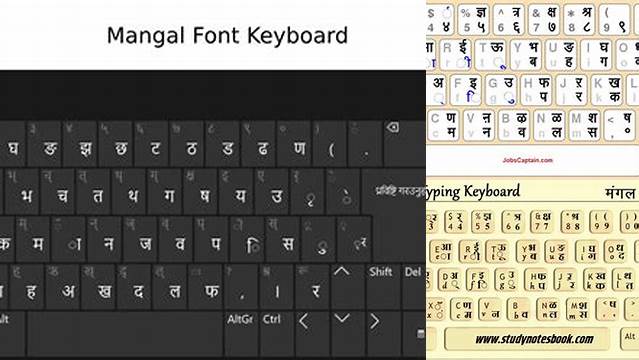
Mangal Font Keyboard Layout: Free PDF Download Guide
Hey guys! Are you looking to get your hands on the Mangal font keyboard layout? Well, you've come to the right place! This comprehensive guide will walk you through everything you need to know, from understanding the Mangal font to downloading the keyboard layout PDF for free. We'll cover all the nitty-gritty details, so you can start typing in Mangal like a pro. Let's dive in!
1. What is Mangal Font?
So, what exactly is the Mangal font? Well, it's a widely used Unicode font primarily used for typing in Hindi and other Indian languages. If you're dealing with Devanagari script, which is used for Hindi, Marathi, Nepali, and more, Mangal is often the go-to font. It's clean, readable, and has become a standard for many official documents and publications. Understanding the Mangal font is the first step in mastering its keyboard layout. It's important to recognize the significance of the Mangal font in digital communication, particularly for those working with Indic scripts. This font ensures that the text appears correctly across different platforms and devices, maintaining readability and consistency. Getting familiar with the nuances of the font itself will make the transition to using the keyboard layout much smoother. Moreover, knowing the history and context of the font's development can provide a deeper appreciation for its role in preserving and promoting linguistic diversity in the digital age. The more you understand about the Mangal font, the better equipped you'll be to utilize its keyboard layout effectively.
2. Importance of Mangal Font Keyboard Layout
Why is the Mangal font keyboard layout so important? Think about it: typing in a different script can be tricky if you don't know where the characters are. The keyboard layout maps the Devanagari characters to specific keys, making it easier to type in Hindi and other related languages. Without a proper layout, you'd be lost! The importance of the Mangal font keyboard layout extends beyond mere convenience; it's about accessibility and efficiency. A well-designed keyboard layout allows users to type quickly and accurately, which is crucial for professional document creation, academic research, and personal communication. Imagine trying to write a lengthy email or report without a proper layout – it would be incredibly time-consuming and frustrating. The Mangal font keyboard layout is specifically designed to accommodate the complex characters and diacritics of Devanagari script, ensuring that users can input text with ease. This is especially important for individuals who are not native English typists but need to work with Devanagari script on a regular basis. By mastering the layout, users can unlock their full potential and communicate effectively in their preferred language.
4. Understanding the Mangal Keyboard Layout
The Mangal keyboard layout might seem a bit daunting at first, but don't worry, it's not as complicated as it looks. It's designed to be logical and efficient, so with a bit of practice, you'll get the hang of it. We'll break down the layout into sections and explain how different characters are mapped to the keys. Understanding the Mangal keyboard layout is crucial for efficient typing in Devanagari script. The layout is designed to accommodate the complex structure of the script, which includes vowels, consonants, and a variety of diacritics. Unlike the standard QWERTY layout, the Mangal layout places frequently used characters in easily accessible positions, minimizing finger travel and maximizing typing speed. By understanding the underlying logic of the layout, users can quickly locate the characters they need and avoid the frustrating hunt-and-peck method. This not only improves typing speed but also reduces the risk of errors and typos. A thorough understanding of the Mangal keyboard layout will empower you to communicate effectively in Hindi and other related languages, whether you're writing emails, documents, or social media posts.
5. Key Mapping and Character Placement
Let's talk about key mapping and character placement on the Mangal keyboard. You'll notice that the vowels and consonants are arranged in a specific way, often based on phonetic similarities. This makes it easier to learn and remember where each character is located. We'll highlight some of the key placements to help you get started. The key mapping and character placement on the Mangal keyboard are carefully designed to optimize typing efficiency and accuracy. The layout takes into account the frequency of character usage in Devanagari script, placing the most common characters in easily accessible positions. Vowels, for example, are typically located on the left side of the keyboard, while consonants are on the right. This arrangement minimizes the distance that fingers need to travel, allowing for faster and more fluid typing. Additionally, the layout groups characters based on their phonetic relationships, which can help users to remember their positions. By understanding the rationale behind the key mapping, users can develop a more intuitive understanding of the layout and improve their typing skills. This knowledge is essential for anyone who wants to become proficient in typing in Mangal font.
6. Tips for Learning the Mangal Keyboard Layout
Learning a new keyboard layout can be challenging, but with the right approach, you can master the Mangal keyboard layout in no time. We'll share some helpful tips and tricks to make the learning process smoother and more efficient. Practice is key, guys! Learning the Mangal keyboard layout requires a combination of understanding, memorization, and practice. Start by familiarizing yourself with the layout using the PDF we discussed earlier. Identify the key positions for vowels, consonants, and diacritics. Then, begin practicing with simple words and phrases, gradually increasing the complexity as you become more comfortable. There are also various online resources and typing tutorials that can help you improve your skills. One effective technique is to use a typing tutor that provides visual feedback and tracks your progress. Consistency is crucial – try to practice for at least 15-20 minutes each day. Over time, your muscle memory will develop, and you'll be able to type in Mangal font without even thinking about the key positions. Remember to be patient with yourself and celebrate your progress along the way.
7. Practice Exercises for Mangal Font Typing
Okay, let's put your knowledge to the test with some practice exercises for Mangal font typing. We'll suggest some drills and activities that will help you reinforce your understanding of the layout and improve your typing speed and accuracy. Repetition is your friend here! Practice exercises are an essential part of mastering the Mangal font keyboard layout. Start with simple exercises, such as typing individual characters and syllables, and then move on to more complex words and phrases. Try typing out common Hindi words and sentences, or even transcribe passages from your favorite Hindi books or articles. Another effective exercise is to use online typing tutors that are specifically designed for the Mangal layout. These tutors often provide interactive lessons and track your progress, giving you valuable feedback on your speed and accuracy. You can also create your own practice exercises by writing out short stories or essays in Mangal font. The key is to find exercises that you enjoy and that challenge you to improve. Regular practice will build your muscle memory and allow you to type more fluently and confidently in Mangal font.
8. Online Resources for Mangal Typing
Luckily, there's a wealth of online resources for Mangal typing available. We'll point you towards some helpful websites, typing tutors, and online keyboards that you can use to practice and improve your skills. The internet is your friend, guys! The internet offers a vast array of resources for learning and practicing Mangal typing. Online typing tutors, websites with Mangal text, and virtual keyboards are just a few of the tools that can aid in your journey to proficiency. Many websites offer free typing lessons and exercises specifically designed for the Mangal font keyboard layout. These lessons often include visual aids, audio pronunciation guides, and interactive exercises to help you learn the key positions and develop your typing skills. Online typing tutors provide personalized feedback on your speed and accuracy, allowing you to track your progress and identify areas for improvement. Virtual keyboards, which display the Mangal keyboard layout on your screen, are also useful for practicing without a physical keyboard. In addition to these resources, there are numerous online communities and forums where you can connect with other Mangal typists, ask questions, and share tips. By leveraging the power of the internet, you can access a wealth of information and support to help you master Mangal typing.
9. Mangal Font Typing Tutors
Mangal font typing tutors can be a game-changer when it comes to learning the layout. These tools provide structured lessons, track your progress, and offer personalized feedback. We'll highlight some of the best typing tutors available online. Investing time in a good typing tutor can significantly accelerate your learning process. Typing tutors are specifically designed to help you learn the Mangal font keyboard layout in a systematic and effective way. They typically offer a range of exercises, from basic character drills to advanced sentence typing, and provide immediate feedback on your speed and accuracy. Many typing tutors also track your progress over time, allowing you to see how much you've improved. One of the key benefits of using a typing tutor is that it can help you develop muscle memory, which is essential for touch typing. By practicing regularly with a tutor, you'll gradually learn the key positions without even thinking about them. Additionally, typing tutors often provide personalized recommendations based on your performance, helping you to focus on areas where you need the most improvement. Whether you're a beginner or an experienced typist, a Mangal font typing tutor can be a valuable tool for enhancing your typing skills.
10. Online Mangal Keyboard Options
If you don't have a physical Mangal keyboard, don't worry! There are plenty of online Mangal keyboard options that you can use. These virtual keyboards allow you to type in Mangal directly in your browser. We'll share some of the best online keyboards available. Online Mangal keyboards are a convenient and accessible way to type in Devanagari script, especially if you don't have a physical Mangal keyboard or if you're using a device that doesn't support Mangal input. These virtual keyboards display the Mangal keyboard layout on your screen, allowing you to type by clicking on the keys with your mouse or tapping on the screen if you're using a touchscreen device. Many online Mangal keyboards also offer additional features, such as predictive text and auto-correction, which can help to improve your typing speed and accuracy. They are particularly useful for situations where you need to type in Mangal temporarily, such as when using a public computer or when traveling. Additionally, online Mangal keyboards can be a great tool for learning the keyboard layout, as they provide a visual representation of the key positions. Whether you're a beginner or an experienced typist, an online Mangal keyboard can be a valuable resource for typing in Devanagari script.
11. Installing Mangal Font on Your Computer
To use the Mangal font, you'll need to install it on your computer. Luckily, it's usually included with Windows, but if you don't have it, we'll show you how to download and install it. It's a pretty straightforward process. Installing the Mangal font on your computer is essential for ensuring that Devanagari script is displayed correctly in your documents and applications. Fortunately, Mangal font is often pre-installed on Windows operating systems, so you may already have it. However, if you don't, or if you're using a different operating system, you can easily download and install the font from various online sources. When downloading fonts, it's important to choose a reputable source to avoid downloading malicious files. Once you've downloaded the font file, the installation process is typically straightforward: simply double-click the file and follow the on-screen instructions. After the font is installed, you'll need to restart your application or computer for the changes to take effect. Once the Mangal font is installed, you'll be able to select it as your font in word processors, email clients, and other applications, allowing you to type and view Devanagari script with ease.
12. Setting Up Mangal Keyboard Layout in Windows
If you're using Windows, you'll need to set up the Mangal keyboard layout in your settings. This will allow you to switch between the English and Mangal layouts easily. We'll walk you through the steps. Setting up the Mangal keyboard layout in Windows is a crucial step for anyone who wants to type in Devanagari script on a regular basis. By adding the Mangal keyboard layout to your system, you can easily switch between English and Mangal input methods using a keyboard shortcut. This allows you to type in both languages seamlessly without having to change your keyboard layout manually. The process for setting up the Mangal keyboard layout in Windows is relatively straightforward and involves navigating to the language settings in the Control Panel or Settings app. Once you've added the Mangal keyboard layout, you can select it as your input method whenever you need to type in Devanagari script. You can also customize the keyboard shortcut used to switch between languages, making it even more convenient to use. By setting up the Mangal keyboard layout in Windows, you'll be able to type in Hindi and other related languages with ease and efficiency.
13. Setting Up Mangal Keyboard Layout on Mac
For Mac users, the process is a bit different, but don't worry, we've got you covered! We'll explain how to set up the Mangal keyboard layout on your Mac, so you can start typing in Hindi in no time. Setting up the Mangal keyboard layout on a Mac is a similar process to Windows, but with a few key differences. Mac OS also supports multiple keyboard layouts, allowing you to easily switch between English and Mangal input methods. To add the Mangal keyboard layout on a Mac, you'll need to navigate to the Keyboard settings in System Preferences. From there, you can add the Devanagari – QWERTY layout, which is the standard Mangal keyboard layout for Mac. Once you've added the layout, you can switch between it and the English layout using the Input menu in the menu bar or by using a keyboard shortcut. Mac OS also allows you to customize the keyboard shortcuts used to switch between languages, making it even more convenient to use. By setting up the Mangal keyboard layout on your Mac, you'll be able to type in Hindi and other related languages with the same ease and efficiency as on Windows.
14. Common Mistakes to Avoid When Typing in Mangal Font
There are some common mistakes to avoid when typing in Mangal font. We'll highlight these pitfalls so you can steer clear of them and type more accurately. Knowing what not to do is just as important as knowing what to do! When typing in Mangal font, there are several common mistakes that users often make, particularly when they're first learning the layout. These mistakes can lead to errors and typos, which can be frustrating and time-consuming to correct. One common mistake is confusing similar-looking characters, such as vowels and consonants that have similar shapes. Another mistake is misplacing diacritics, which are small marks that modify the sound of a letter. It's also important to pay attention to the order in which characters are typed, as the order can affect the way the text is displayed. By being aware of these common mistakes, you can take steps to avoid them and improve your typing accuracy. Practice and attention to detail are key to mastering Mangal font typing and minimizing errors.
15. Troubleshooting Mangal Font Display Issues
Sometimes, you might encounter troubleshooting Mangal font display issues. If the font isn't displaying correctly, we'll offer some solutions to help you fix the problem. Don't panic, we've got your back! Despite being a widely used font, Mangal font can sometimes encounter display issues on certain systems or applications. These issues can range from characters not displaying correctly to the text appearing garbled or unreadable. One common cause of Mangal font display issues is the lack of proper font support on the system. If you're using an older operating system or application, it may not have the necessary support for Devanagari script. In this case, you may need to update your system or application to the latest version. Another potential cause is font corruption. If the Mangal font file is damaged or corrupted, it may not display correctly. In this case, you can try re-installing the font. Additionally, some applications may have specific settings that affect font display. If you're experiencing display issues in a particular application, you may need to adjust the font settings within the application. By troubleshooting these common issues, you can ensure that Mangal font displays correctly and that you can read and type Devanagari script without any problems.
16. Mangal Font for Different Indian Languages
As we mentioned earlier, Mangal font isn't just for Hindi. It's used for several other Indian languages that use the Devanagari script. We'll explore how Mangal is used for these languages. The versatility of Mangal font extends beyond Hindi, as it is also used for several other Indian languages that utilize the Devanagari script. These languages include Marathi, Nepali, Sanskrit, and Konkani, among others. The Devanagari script is a unified script that allows for the representation of sounds across these languages, making Mangal font a suitable choice for typing in any of them. However, it's important to note that while the basic keyboard layout remains the same, there may be some variations in character usage and diacritic combinations across different languages. For example, some characters may be more common in one language than another. Additionally, the specific conventions for writing certain words and phrases may vary. Therefore, while mastering the Mangal keyboard layout is a crucial first step, it's also important to familiarize yourself with the specific nuances of the language you're typing in. By understanding these nuances, you can ensure that your text is both accurate and idiomatic.
17. Differences Between Mangal and Other Hindi Fonts
There are other Hindi fonts out there, so what are the differences between Mangal and other Hindi fonts? We'll compare Mangal to some popular alternatives and explain why Mangal is often preferred. Understanding these distinctions can help you choose the right font for your needs. While Mangal is a widely used font for typing in Hindi, it's not the only option available. There are several other Hindi fonts that you can use, each with its own unique characteristics and features. Some popular alternatives include Kruti Dev, Arial Unicode MS, and Nirmala UI. One of the key differences between Mangal and other Hindi fonts is that Mangal is a Unicode font, while some other fonts, such as Kruti Dev, are non-Unicode fonts. Unicode fonts use a standardized character encoding system, which ensures that the text is displayed correctly across different platforms and applications. Non-Unicode fonts, on the other hand, use proprietary encoding schemes, which can lead to display issues and compatibility problems. Another difference is the keyboard layout. Mangal uses the Inscript keyboard layout, which is a standard keyboard layout for Indian languages. Kruti Dev, on the other hand, uses a different keyboard layout. These differences can impact typing speed and accuracy, as well as the ease of learning the layout. Ultimately, the best Hindi font for you will depend on your specific needs and preferences. However, Mangal's Unicode compliance, Inscript keyboard layout, and wide availability make it a popular and reliable choice for many users.
18. Advantages of Using Mangal Font
There are many advantages of using Mangal font. We'll highlight the key benefits, including its wide availability, Unicode support, and readability. Mangal is a solid choice for anyone working with Devanagari script. Using Mangal font offers several advantages, making it a popular choice for typing in Hindi and other related languages. One of the main advantages is its wide availability. Mangal font is often pre-installed on Windows operating systems, making it readily accessible to many users. This eliminates the need to download and install the font separately, simplifying the process of typing in Devanagari script. Another key advantage is its Unicode support. As a Unicode font, Mangal ensures that text is displayed correctly across different platforms and applications, preventing display issues and compatibility problems. This is particularly important for professional documents and publications that need to be shared and viewed by a wide audience. Additionally, Mangal font is known for its readability. The clear and crisp design of the characters makes it easy to read text in Mangal font, even at smaller font sizes. This is crucial for ensuring that your content is accessible and engaging. Overall, the advantages of using Mangal font make it a reliable and efficient choice for anyone working with Devanagari script.
19. Disadvantages of Using Mangal Font
Of course, no font is perfect. There are also some disadvantages of using Mangal font that you should be aware of. We'll discuss these drawbacks to give you a balanced perspective. It's good to know the limitations too! While Mangal font offers many advantages, there are also some potential drawbacks to consider. One disadvantage is that the Inscript keyboard layout, which is used by Mangal font, can be challenging to learn for users who are accustomed to the QWERTY layout. The Inscript layout places characters in different positions than the QWERTY layout, which can require significant practice and effort to master. This can be a barrier for some users, particularly those who are already proficient in typing on a QWERTY keyboard. Another disadvantage is that Mangal font may not be supported by all applications and systems. Although Mangal is widely available, some older software or operating systems may not have the necessary support for the font, leading to display issues. Additionally, some users may find the aesthetic appearance of Mangal font to be less appealing than other Hindi fonts. While Mangal is known for its readability, it may not have the same stylistic flair as some other fonts. Ultimately, the decision of whether or not to use Mangal font will depend on your individual needs and preferences. It's important to weigh the advantages and disadvantages carefully before making a choice.
20. Mangal Font and Unicode Compatibility
We've touched on this already, but let's dive deeper into Mangal font and Unicode compatibility. Understanding Unicode is crucial for ensuring your text displays correctly across different platforms and devices. Unicode is the foundation for modern text encoding. Mangal font's Unicode compatibility is a key factor in its widespread adoption and reliability. Unicode is a universal character encoding standard that assigns a unique code point to every character in every language. This ensures that text is displayed correctly across different platforms, applications, and devices, regardless of the operating system or software being used. Mangal font, as a Unicode font, adheres to this standard, guaranteeing that text typed in Mangal will be displayed correctly on any Unicode-compliant system. This is particularly important for professional documents and publications that need to be shared and viewed by a wide audience, as it eliminates the risk of display issues and compatibility problems. In contrast, non-Unicode fonts use proprietary encoding schemes, which can lead to text appearing garbled or unreadable on systems that don't support the specific encoding. By using a Unicode font like Mangal, you can ensure that your text is accessible and readable to everyone, regardless of their computing environment.
21. Mangal Font for Official Documents
Mangal font is often the preferred font for official documents in India. We'll explain why and discuss the importance of using a standard font for official communication. Consistency is key in official contexts. The use of Mangal font for official documents in India is a testament to its reliability, readability, and Unicode compliance. In many government and official settings, Mangal font is the preferred font for drafting letters, reports, and other important documents. This standardization ensures consistency and professionalism in communication, making it easier for readers to understand the content. Using a standard font like Mangal also reduces the risk of display issues and compatibility problems, as it is widely supported across different systems and applications. This is particularly important for official documents, which may need to be accessed and viewed by a wide range of individuals and organizations. Additionally, Mangal font's clear and crisp design enhances readability, ensuring that the text is easy to read and comprehend. By using Mangal font for official documents, organizations can maintain a consistent and professional image, while also ensuring that their communications are accessible and readable to all.
22. Mangal Font in Government and Public Sector
Expanding on the previous point, let's look specifically at Mangal font in the government and public sector. It plays a vital role in official communication and record-keeping. Government bodies rely on standardized fonts for clarity and accessibility. Mangal font plays a crucial role in the government and public sector in India, serving as a standard font for official communication and record-keeping. Government departments, agencies, and public sector organizations often use Mangal font for drafting official documents, correspondence, and public notices. This standardization ensures consistency and professionalism in communication, while also promoting accessibility for citizens who may be using different systems and devices. The use of Mangal font also helps to preserve the integrity of official records, as it is a widely supported and reliable font that is less likely to encounter display issues or compatibility problems. Additionally, Mangal font's Unicode compliance ensures that government documents can be easily accessed and processed by different software applications and systems. By adopting Mangal font as a standard, the government and public sector demonstrate their commitment to clear, accessible, and reliable communication.
23. Mangal Font and Digital Accessibility
Mangal font also contributes to digital accessibility. We'll discuss how it helps ensure that online content is readable for a wider audience, including those with visual impairments. Digital accessibility is crucial in today's world. Mangal font plays a significant role in promoting digital accessibility for Hindi and other Devanagari script users. Digital accessibility refers to the design of websites, applications, and other digital content that can be used by people with disabilities, including visual impairments, hearing impairments, and cognitive disabilities. Mangal font's clear and crisp design enhances readability, making it easier for people with visual impairments to read online content. Additionally, Mangal font's Unicode compliance ensures that text is displayed correctly across different browsers and assistive technologies, such as screen readers. Screen readers are software programs that convert text into speech or braille, allowing people with visual impairments to access digital content. By using Mangal font, content creators can ensure that their online content is accessible to a wider audience, including those with disabilities. This is particularly important for government websites, educational resources, and other public information portals.
24. Mangal Font for Web Design
If you're a web designer, you might be wondering about using Mangal font for web design. We'll discuss its suitability for websites and online content, and offer some tips for using it effectively. Choosing the right font is key for a website's readability and visual appeal. Mangal font can be a suitable choice for web design, particularly for websites that primarily target Hindi and other Devanagari script users. When using Mangal font for web design, it's important to consider several factors to ensure optimal readability and visual appeal. One factor is font size. It's generally recommended to use a slightly larger font size for Devanagari script than for Latin script, as Devanagari characters can appear smaller and more intricate. Another factor is line height. Adequate line height is crucial for readability, as it prevents lines of text from appearing cramped and difficult to follow. Additionally, it's important to choose a suitable font pairing for the Latin script portions of your website. A font pairing that complements Mangal font can enhance the overall visual harmony of your design. When using Mangal font for web design, it's also crucial to ensure that the font is properly embedded in your website, so that it displays correctly on all browsers and devices. By carefully considering these factors, you can effectively use Mangal font to create visually appealing and accessible websites for Hindi and other Devanagari script users.
25. Mangal Font for Graphic Design
Beyond web design, Mangal font can also be used in graphic design projects. We'll explore its applications in print materials, logos, and other visual designs. A versatile font can be a valuable asset for graphic designers. Mangal font can also be used effectively in graphic design projects, extending its versatility beyond web design and document creation. Its clear and legible design makes it suitable for a variety of applications, including print materials, logos, and other visual designs. When using Mangal font for graphic design, it's important to consider the overall aesthetic and the message you're trying to convey. Mangal font's relatively simple and straightforward design can lend a sense of professionalism and clarity to your designs. However, it's also important to choose complementary fonts and design elements that align with the desired mood and style. For example, you might pair Mangal font with a more decorative font for headings or titles, while using Mangal font for body text. Additionally, consider the color palette and overall layout of your design to ensure that the text is easily readable and visually appealing. By carefully considering these factors, you can effectively use Mangal font to create visually stunning and impactful graphic designs.
26. Alternatives to Mangal Font
While Mangal is a popular choice, there are alternatives to Mangal font that you might want to consider. We'll explore some other Hindi fonts and discuss their strengths and weaknesses. Exploring different fonts can help you find the perfect fit for your project. While Mangal is a widely used and reliable font for typing in Hindi, it's not the only option available. There are several alternatives to Mangal font that you might want to consider, depending on your specific needs and preferences. Some popular alternatives include Kruti Dev, Arial Unicode MS, and Nirmala UI. Kruti Dev is a non-Unicode font that is widely used in India, particularly for older documents and publications. While it offers a distinctive aesthetic, its non-Unicode compliance can lead to display issues and compatibility problems. Arial Unicode MS is a Unicode font that supports a wide range of characters, including Devanagari script. It's a versatile font that can be used for both Latin and non-Latin scripts. Nirmala UI is a Unicode font that is designed specifically for Windows operating systems. It offers a clean and modern design and is known for its readability. Ultimately, the best alternative to Mangal font will depend on your individual requirements and the specific context in which you're using the font. It's important to weigh the advantages and disadvantages of each option before making a decision.
27. Future of Mangal Font
What does the future of Mangal font look like? We'll speculate on its continued use and potential evolution in the digital age. Font technology is constantly evolving, so it's interesting to consider the future. The future of Mangal font appears to be secure, given its widespread use, Unicode compliance, and established role in official communication and digital accessibility. As technology continues to evolve, Mangal font is likely to remain a prominent choice for typing in Hindi and other Devanagari script languages. However, there may also be some developments and improvements in the font itself. For example, we might see the release of new versions of Mangal font with enhanced design features or improved readability. Additionally, there may be efforts to further optimize the Inscript keyboard layout, making it easier to learn and use. The continued growth of digital communication and online content creation will likely drive further adoption of Mangal font, as more and more people seek to create and share content in Hindi and other related languages. Overall, the future of Mangal font looks bright, with its continued use and potential evolution ensuring its relevance in the digital age.
28. Resources for Learning Hindi Typing
If you're serious about mastering Mangal font, you'll need some resources for learning Hindi typing. We'll compile a list of helpful websites, tutorials, and other learning materials. There's a wealth of information available to help you improve your skills. Learning Hindi typing effectively requires access to a variety of resources and learning materials. Fortunately, there are numerous websites, tutorials, and other tools available that can help you master the Mangal font keyboard layout and improve your typing skills. Online typing tutors are a valuable resource, as they provide structured lessons, track your progress, and offer personalized feedback. Many websites offer free Hindi typing lessons and exercises specifically designed for the Mangal layout. Additionally, there are numerous video tutorials and online courses that can guide you through the learning process. Language learning websites and apps can also be helpful, as they provide vocabulary and grammar lessons that can enhance your overall language proficiency. Practice is key to mastering Hindi typing, so it's important to dedicate time each day to practicing your skills. By utilizing these resources and consistently practicing, you can become a proficient Hindi typist in Mangal font.
29. The Inscript Keyboard Layout and Mangal Font
Let's delve deeper into the Inscript keyboard layout and Mangal font. We'll explain why this layout is the standard for Indian languages and how it works with Mangal. Understanding the layout is key to efficient typing. The Inscript keyboard layout is the standard keyboard layout for Indian languages, and it plays a crucial role in the use of Mangal font. The Inscript layout is designed to be a unified layout that can be used for typing in multiple Indian languages, including Hindi, Marathi, Sanskrit, and others that use the Devanagari script. It is based on phonetic principles, with characters arranged in a logical manner that minimizes finger travel and maximizes typing efficiency. Mangal font is designed to work seamlessly with the Inscript keyboard layout, ensuring that characters are displayed correctly and that typing is smooth and intuitive. The Inscript layout places vowels on the left side of the keyboard and consonants on the right side, with diacritics and other modifiers positioned in a convenient manner. Learning the Inscript keyboard layout is essential for anyone who wants to type efficiently in Mangal font and other Indian languages. While it may take some time and effort to master, the Inscript layout offers a standardized and effective way to type in a variety of Indian scripts.
30. Advanced Techniques for Mangal Font Typing
Once you've mastered the basics, you might want to explore some advanced techniques for Mangal font typing. We'll discuss some tips and tricks to help you type even faster and more accurately. Speed and accuracy are the hallmarks of an expert typist! After mastering the basics of Mangal font typing, you can explore advanced techniques to further enhance your speed and accuracy. One technique is to focus on touch typing, which involves typing without looking at the keyboard. Touch typing requires developing muscle memory for the key positions, but it can significantly improve your typing speed and efficiency. Another technique is to practice typing common Hindi words and phrases, which will help you build fluency and reduce the need to think about individual characters. Additionally, you can explore keyboard shortcuts and macros, which can automate repetitive tasks and streamline your typing workflow. For example, you might create a keyboard shortcut for inserting a commonly used word or phrase. Consistent practice and dedication are key to mastering advanced Mangal font typing techniques. By incorporating these techniques into your typing routine, you can become a highly proficient Hindi typist.